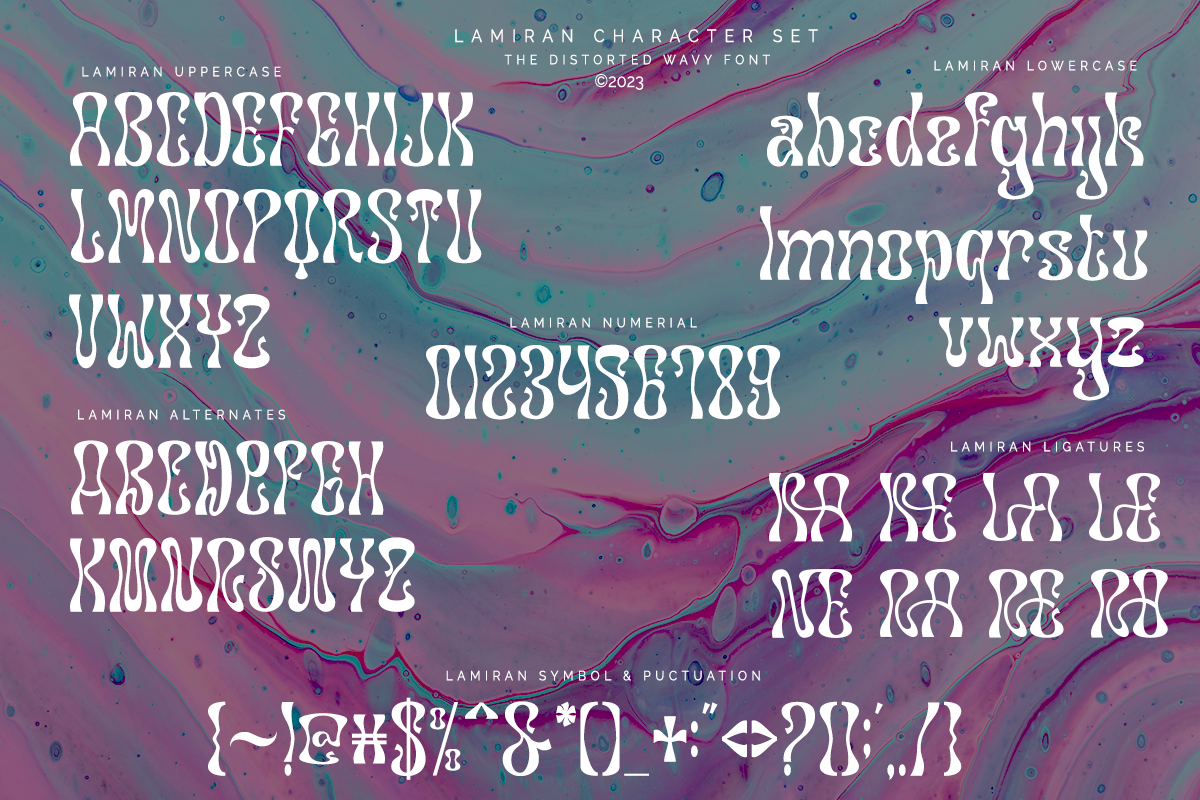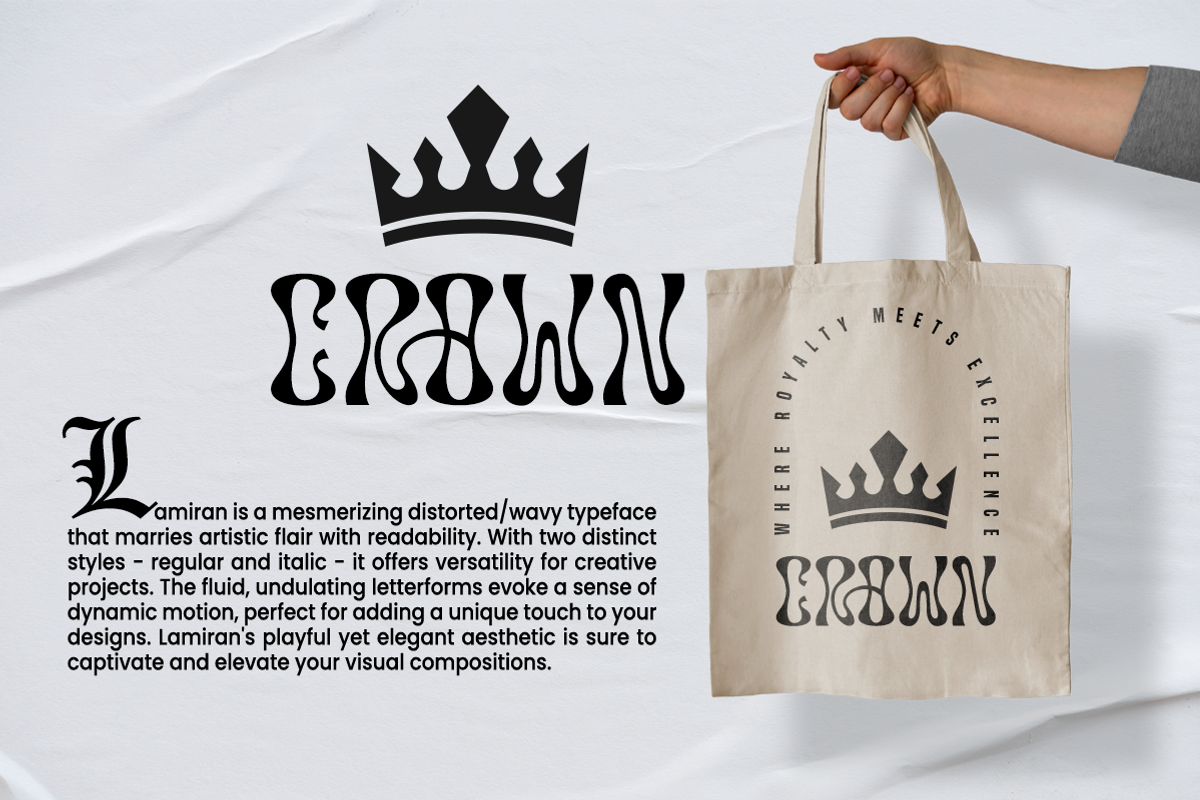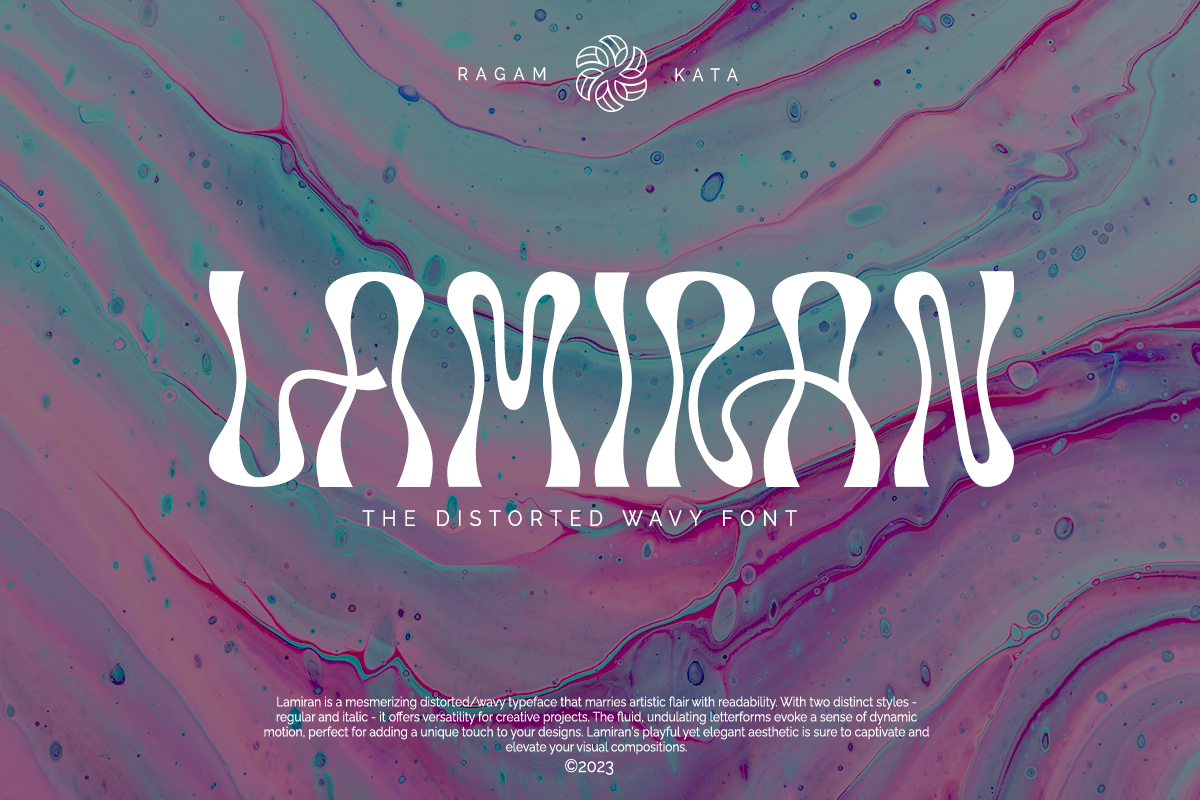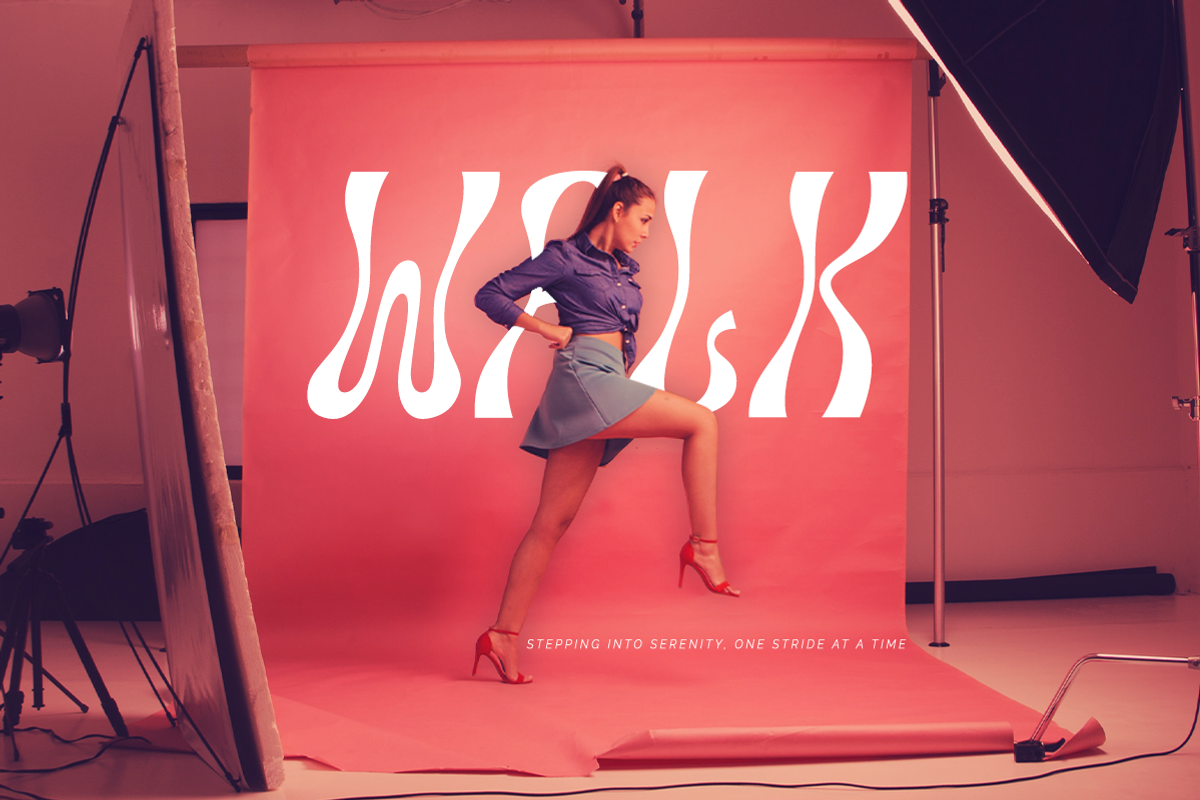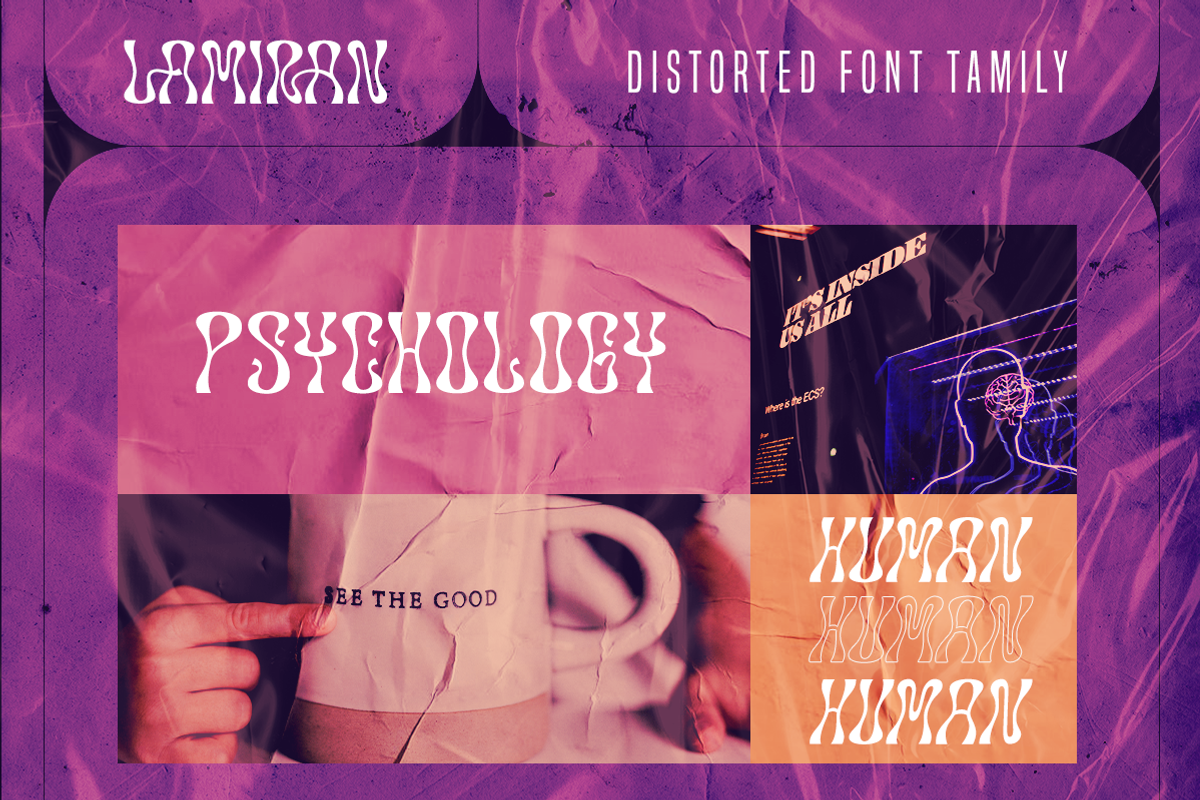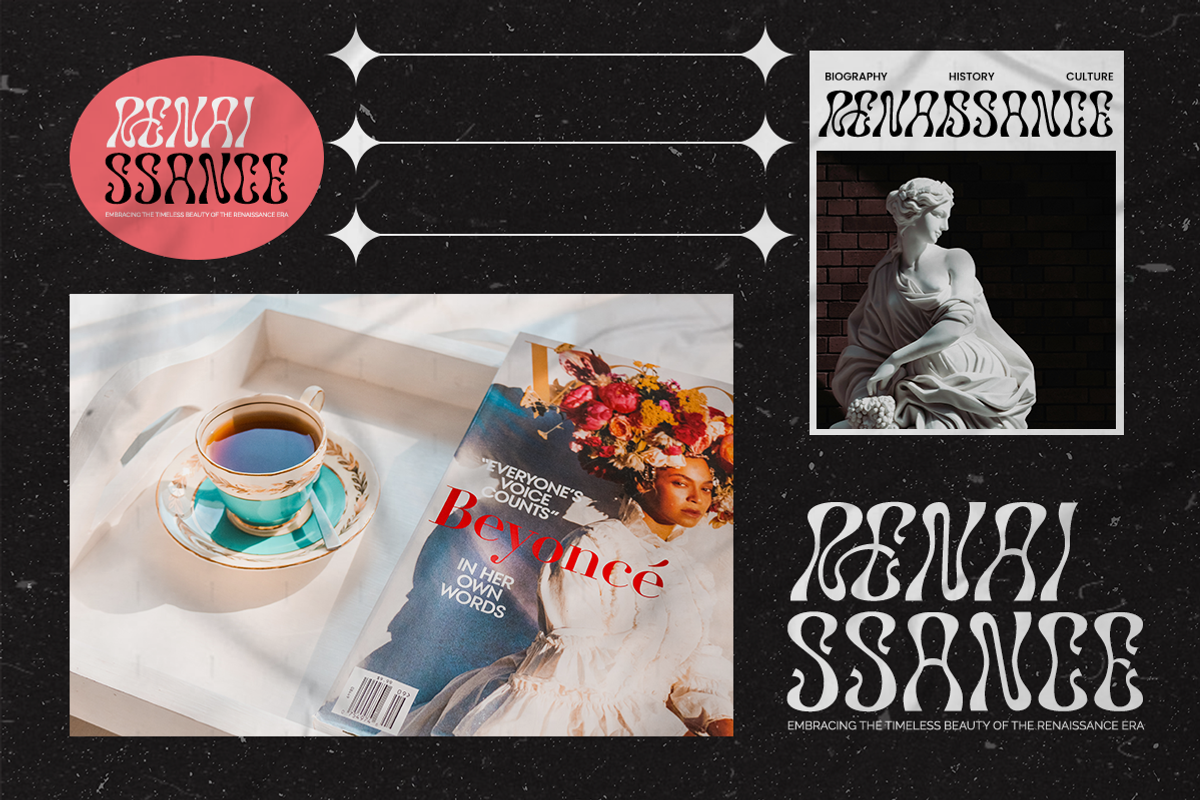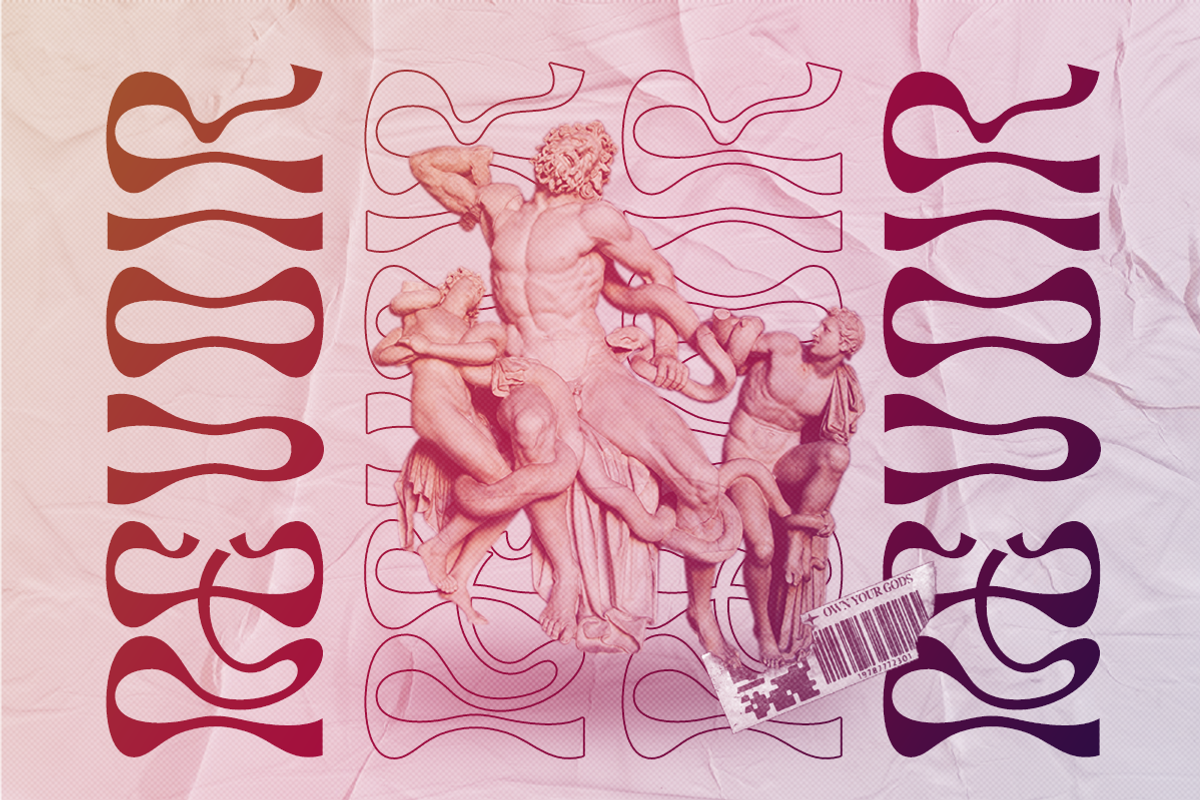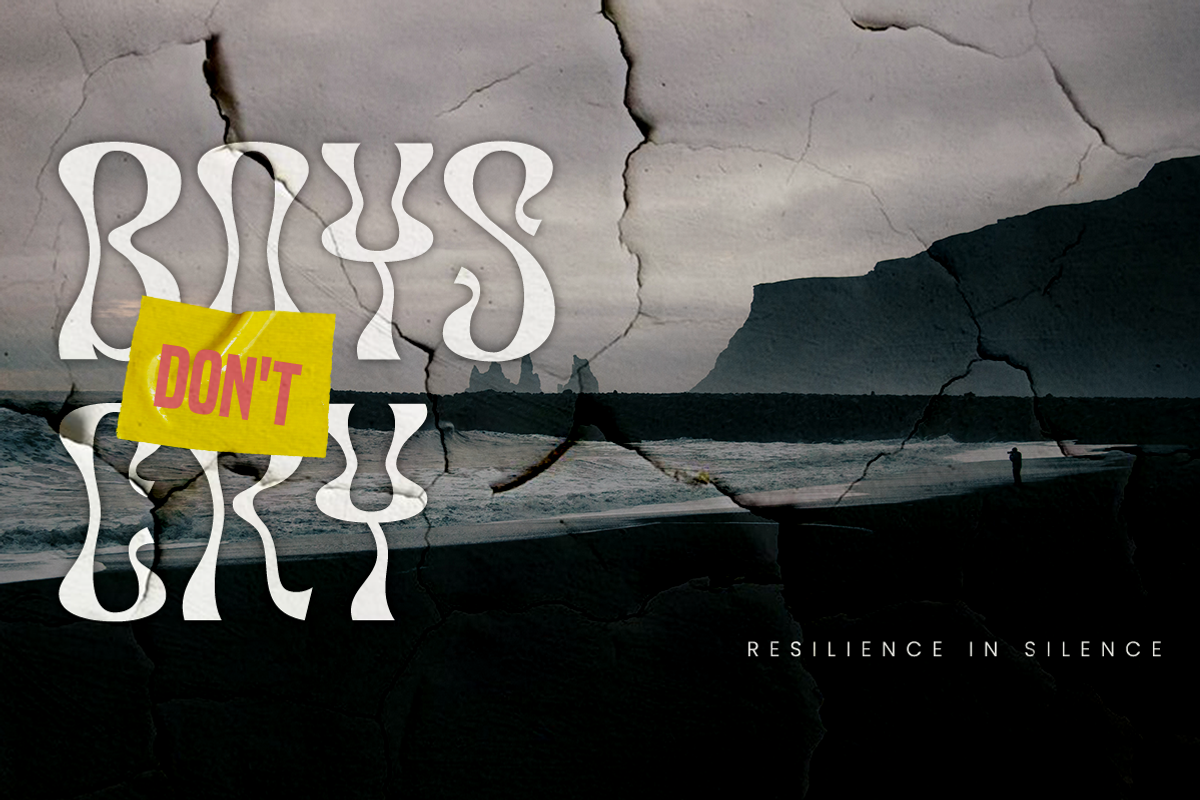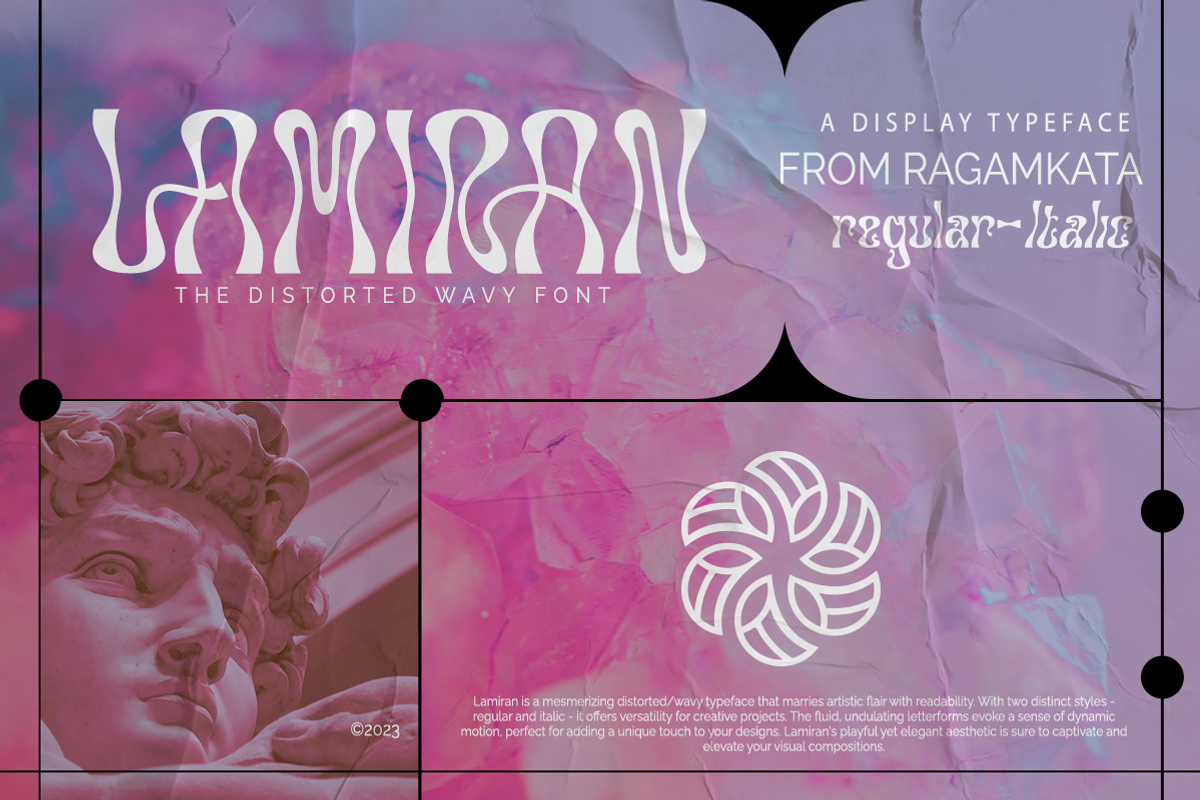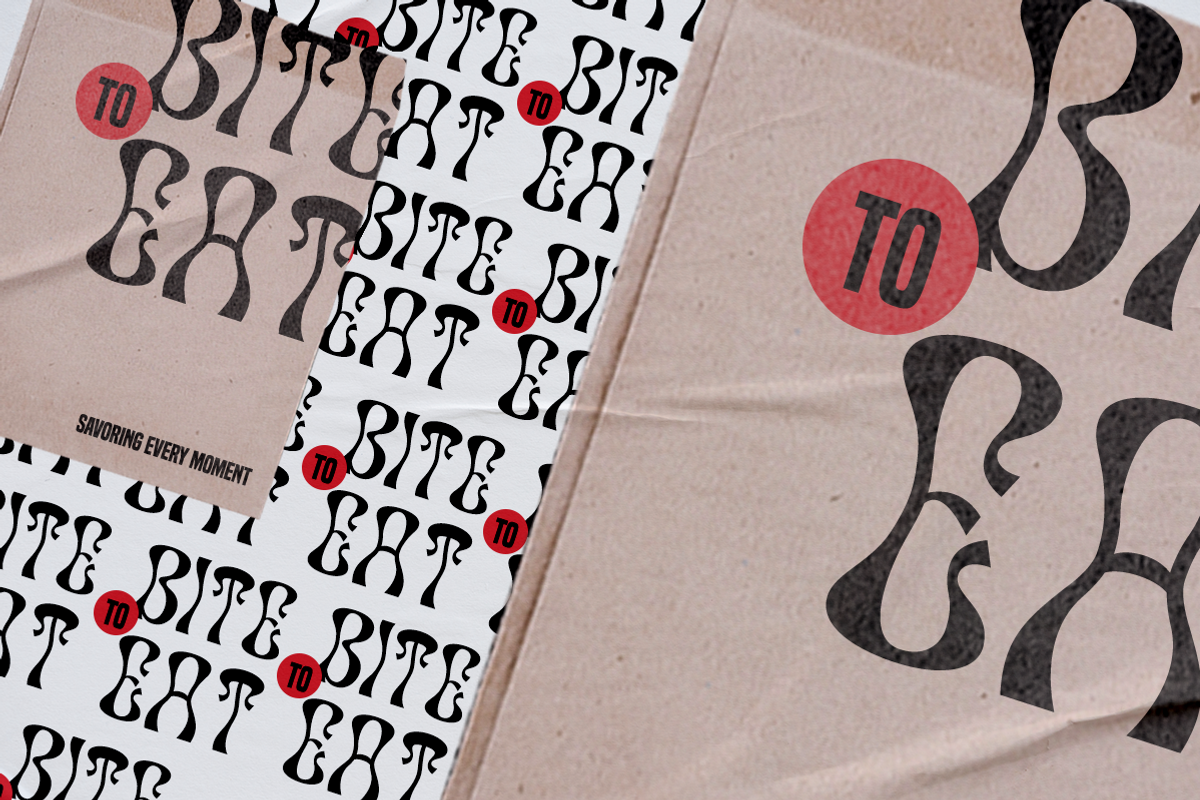
Lamiran - Distorted Wavy Font
Lamiran is a Distorted Wavy Font . You're not going to write a novel with this font, I will tell you that but... if you want something seriously psychedelic thats part art and part font, then this is the font for you. Using it sparingly to mix and match with a clean sans serif or go all out for a good time.